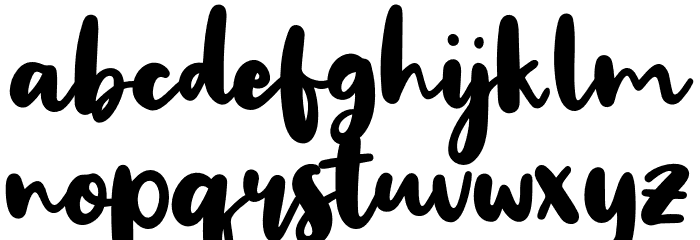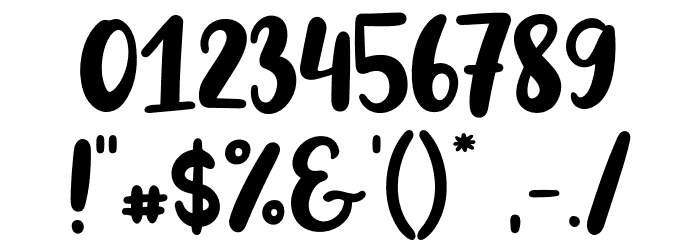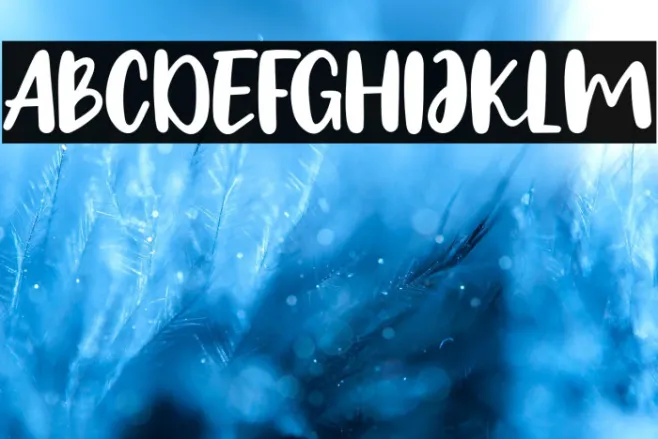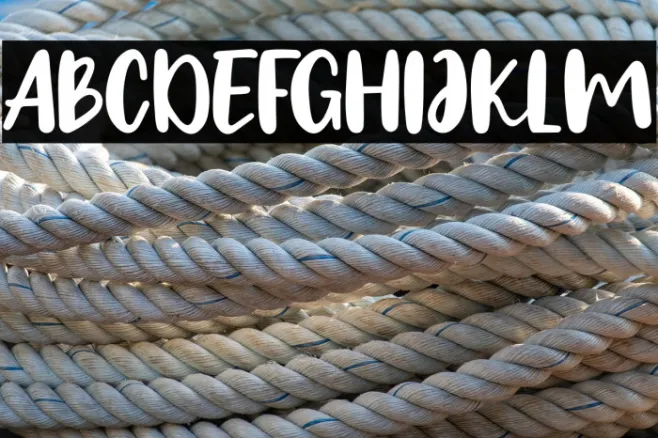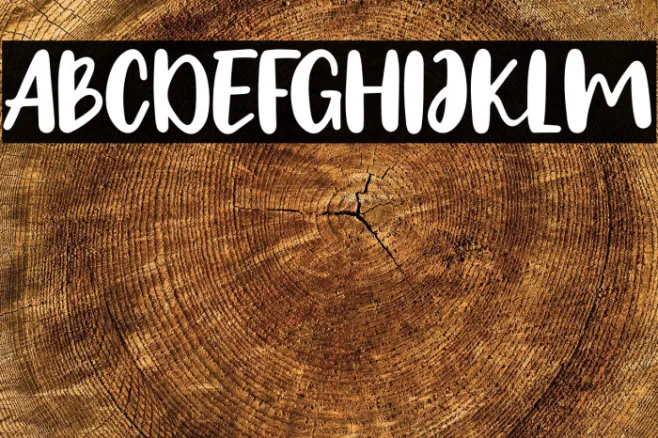
Big Snow Font
This font features a bold and playful script style with a handwritten appearance. The characters are rounded and have a smooth flow, giving them a friendly and approachable look. The uppercase letters are bold and prominent, while the lowercase letters maintain a consistent style with a slightly more casual feel. The numbers and special characters follow the same playful aesthetic, making the font versatile for various design needs. The overall design is cohesive, with a consistent stroke width that adds to its charm and readability.
A bold, playful script font with a handwritten style.
- Font: Big Snow
- Proposed Projects: Ideal for greeting cards, playful branding, children's books, and social media graphics.
- Category: Script
- Overall Style: Playful, Handwritten
- Use Case: Logos, Headlines, Invitations